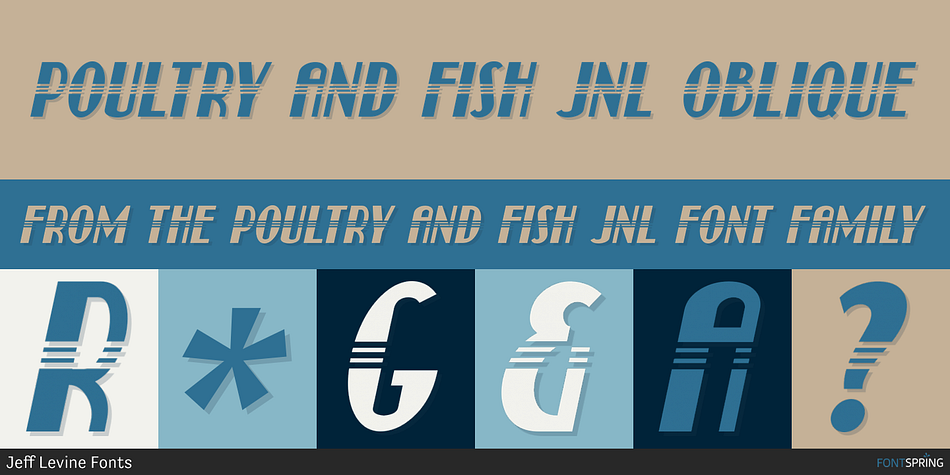
POULTRY AND FISH JNL OBLIQUE
Poultry And Fish JNL is a art deco font family. This typeface has two styles and was published by Jeff Levine Fonts.
The image of an old enamel sign advertising poultry inspired Poultry and Fish JNL, which is available in both regular and oblique versions.
Horizontal cut-through lines within the Art Deco-era hand lettering adds to the uniqueness of this type design.